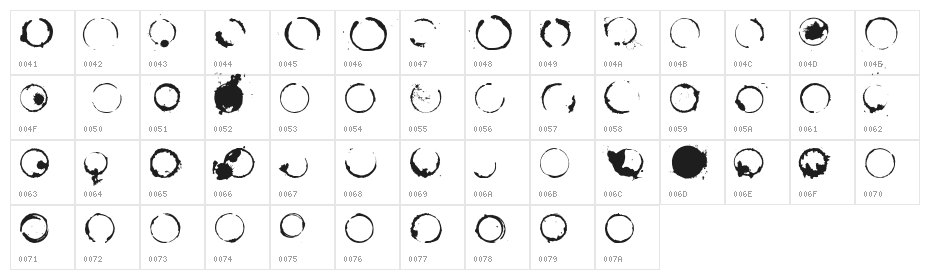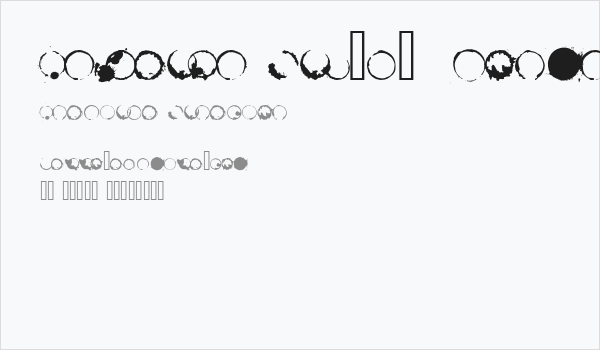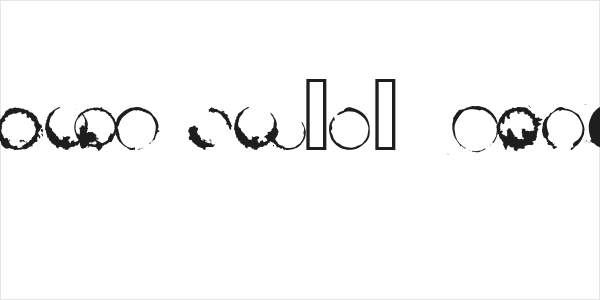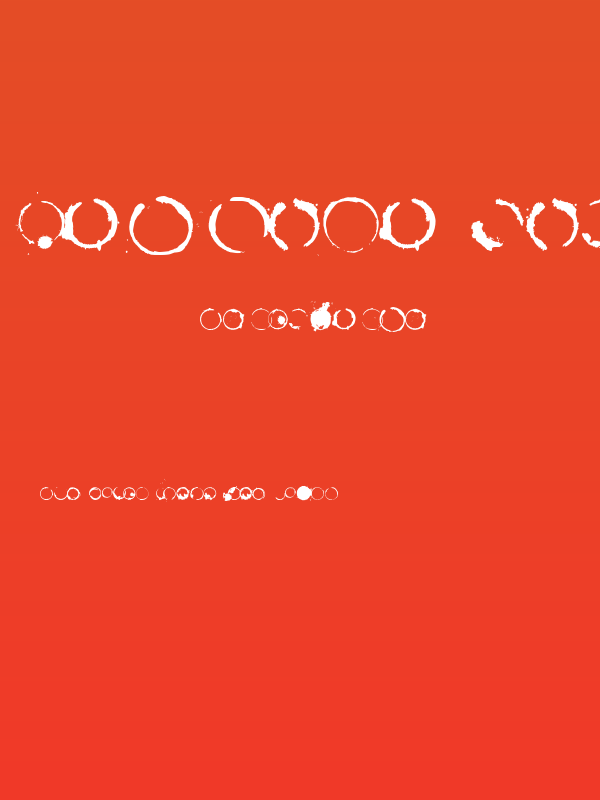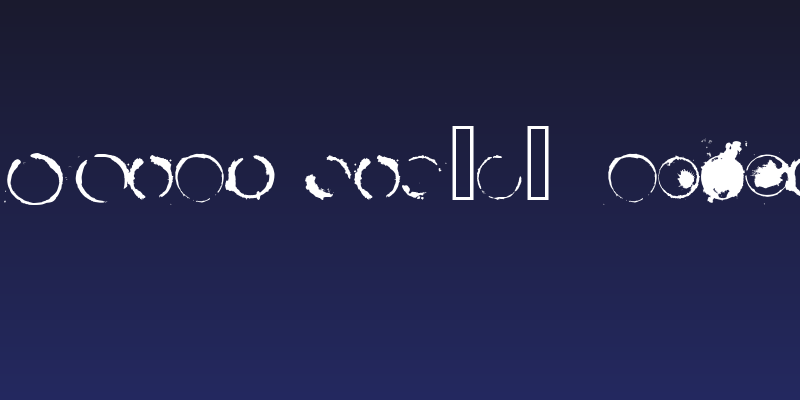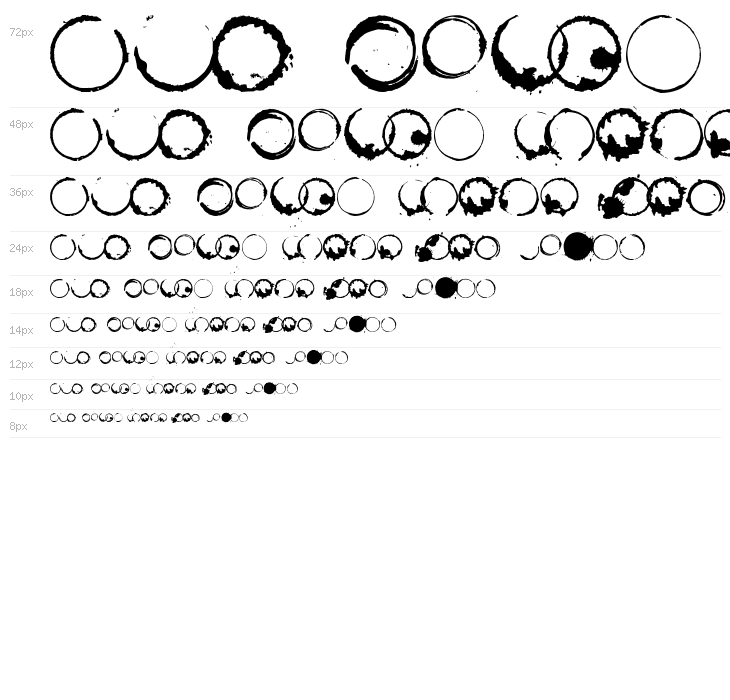
Cafeina Dig_v2 Normal Font
Cafeina Dig_v2 Normal Description
This font features a unique and artistic design, resembling coffee cup stains. Each character is formed by circular shapes with varying degrees of ink splatter, creating a textured and organic appearance. The design is highly decorative and unconventional, making it stand out with its abstract and playful style. The font's irregularity and artistic flair make it suitable for creative projects that require a distinctive and eye-catching typeface.
| Use Case | Logos, Posters, Branding |
| Proposed Projects | Ideal for coffee shop branding, artistic posters, creative packaging, and unique invitations. |